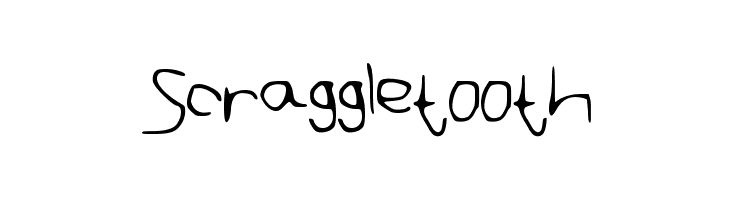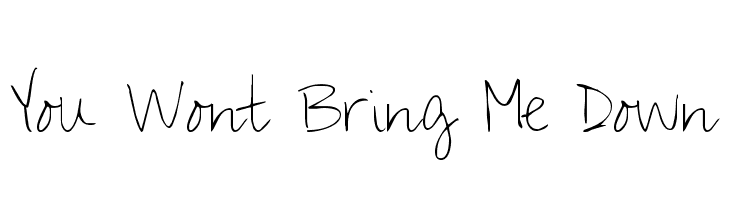
A playful, handwritten font with tall, narrow letters and consistent stroke width.
An elegant, flowing script font with a handwritten style.
A playful, handwritten font with irregular strokes and a casual style.
A playful, hand-drawn font with whimsical curls and flourishes.
A playful, bold font with a cartoon-like, bubbly style.
A casual, handwritten font with a playful and informal style.
A bold, hand-drawn font with high contrast and dynamic character shapes.
A playful, bold, and hand-drawn font with rounded edges and a whimsical charm.